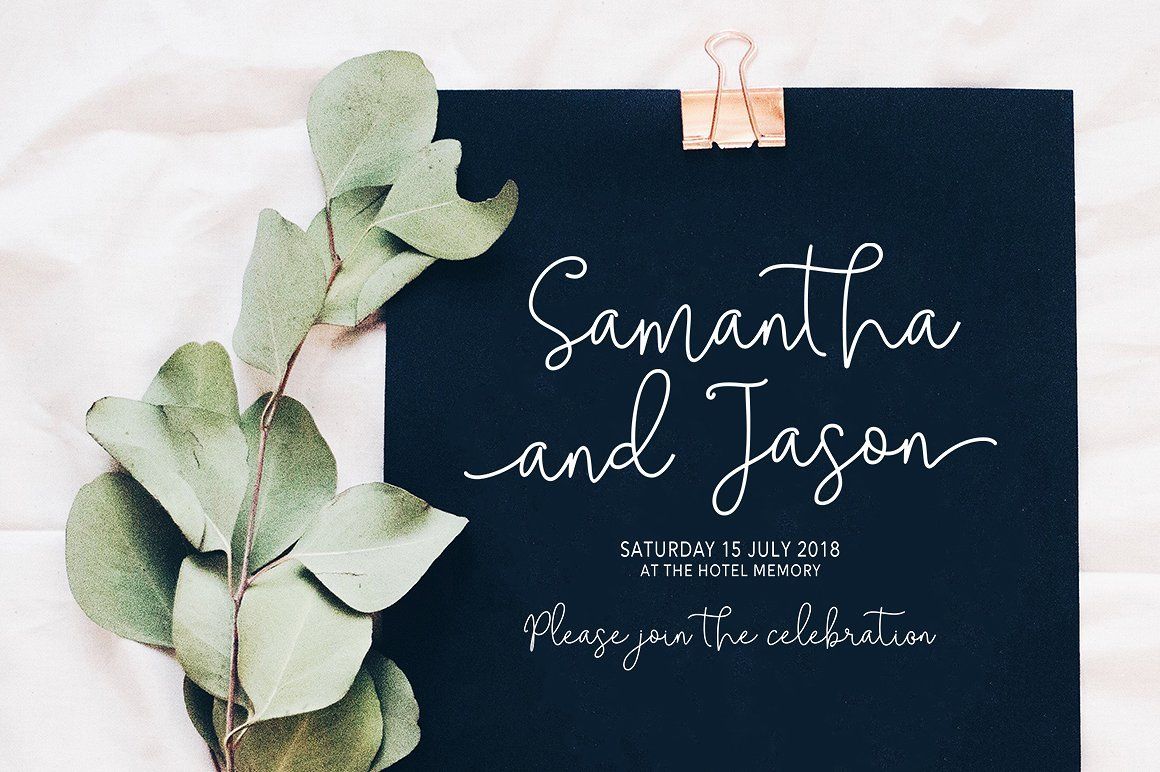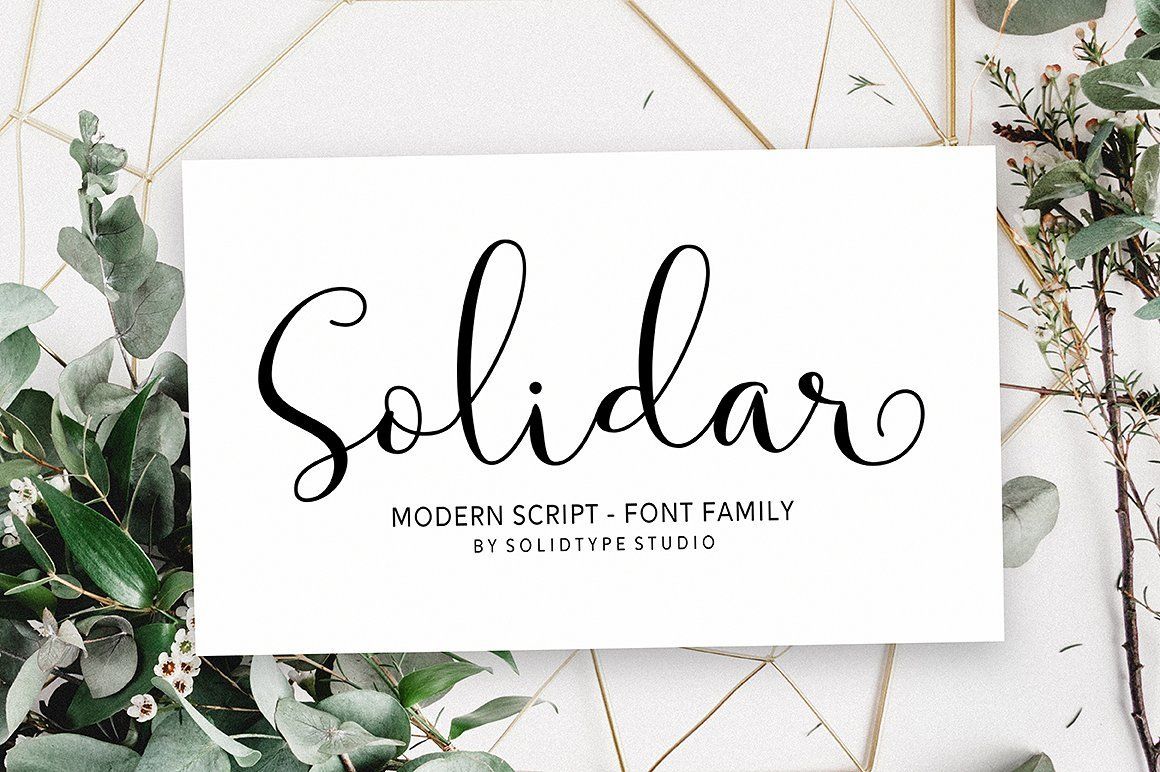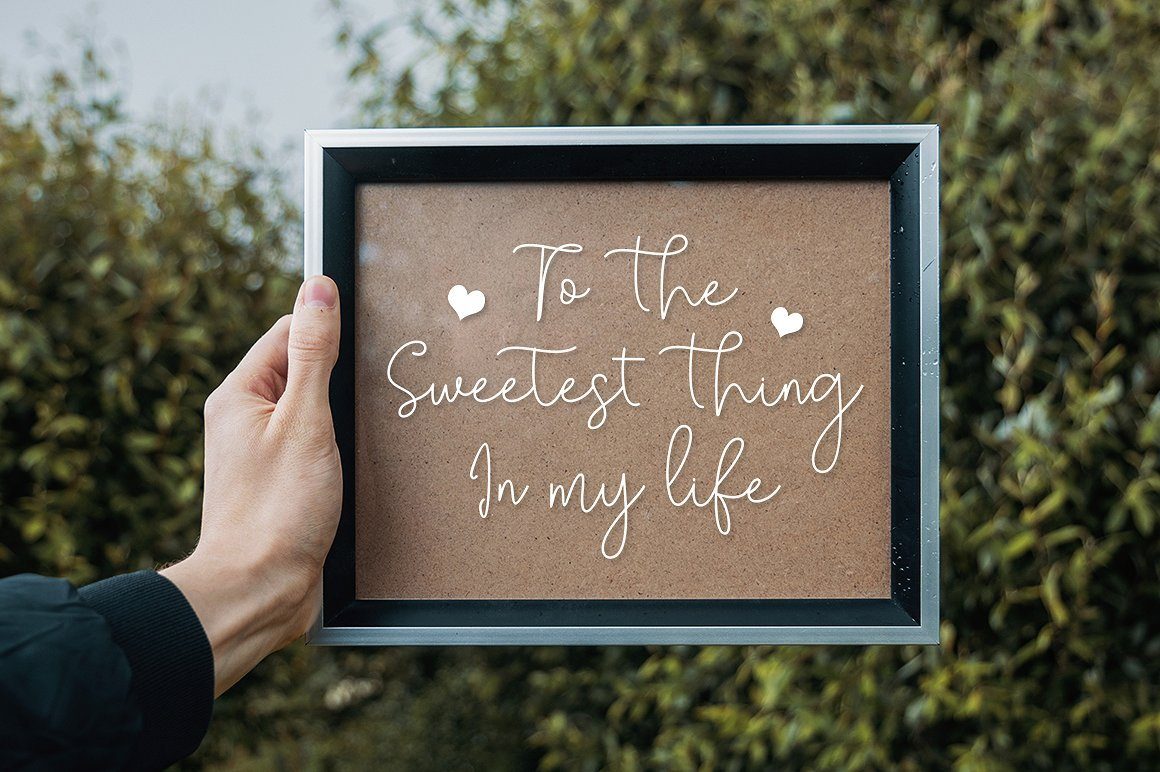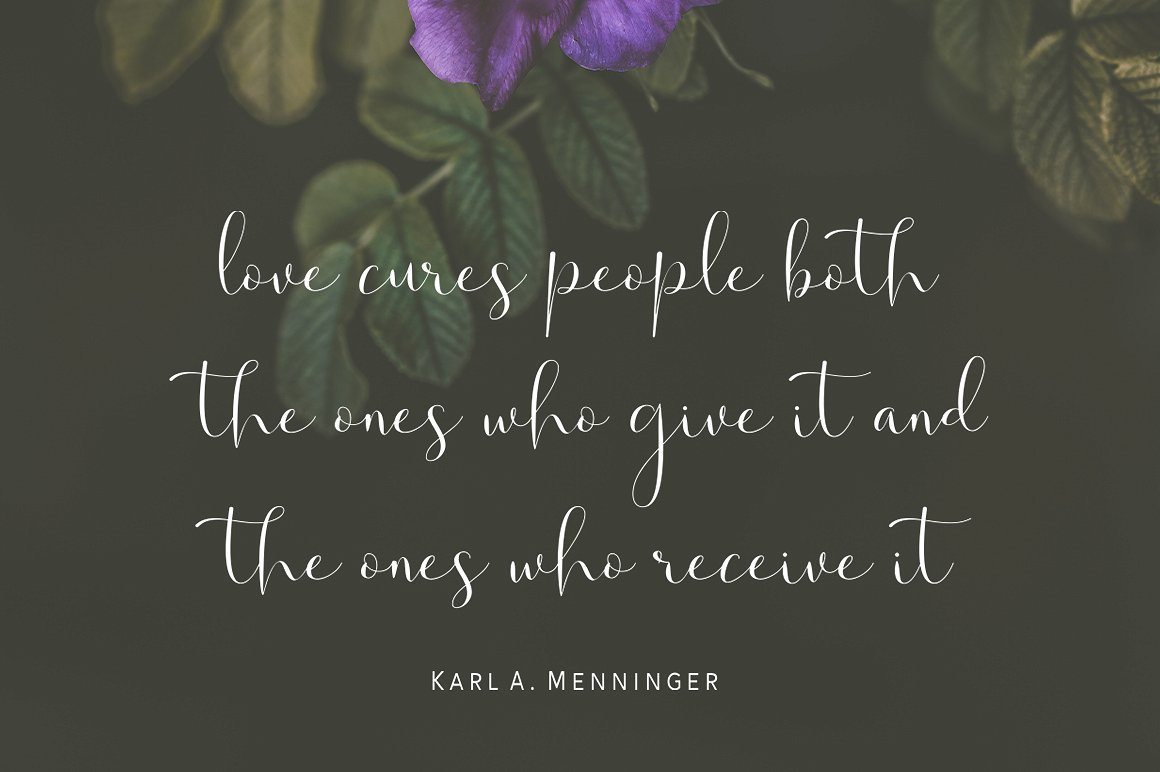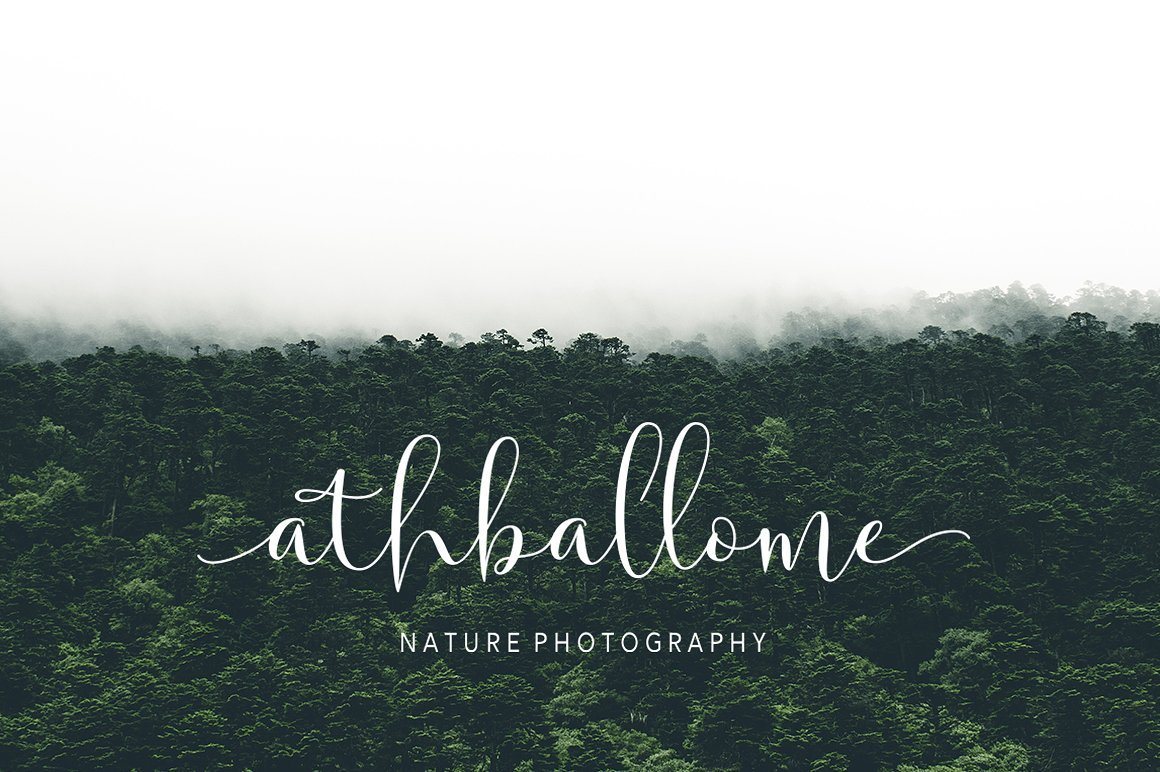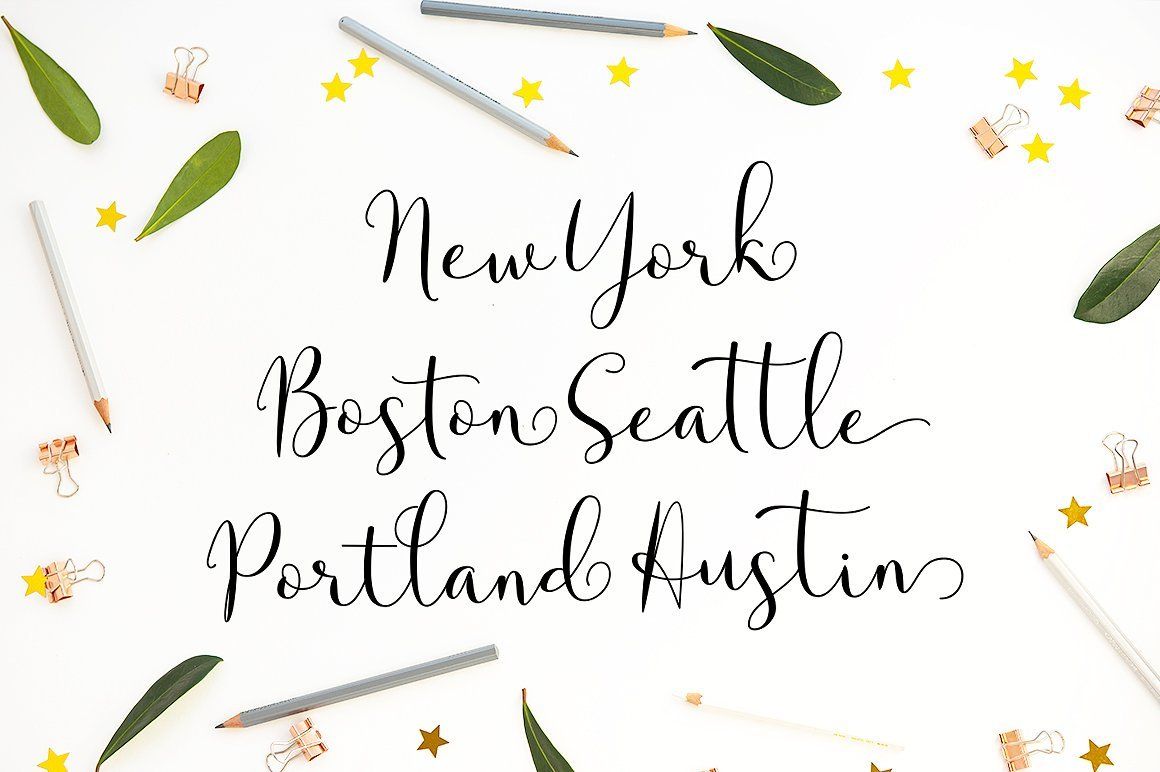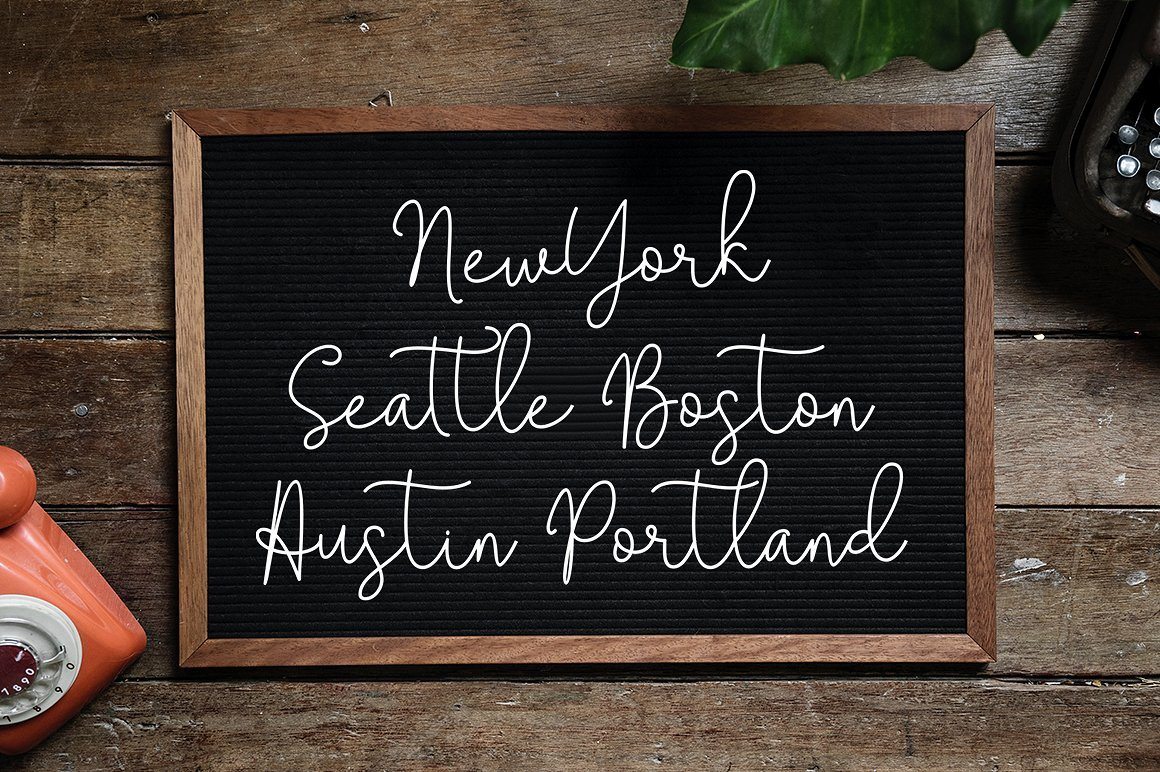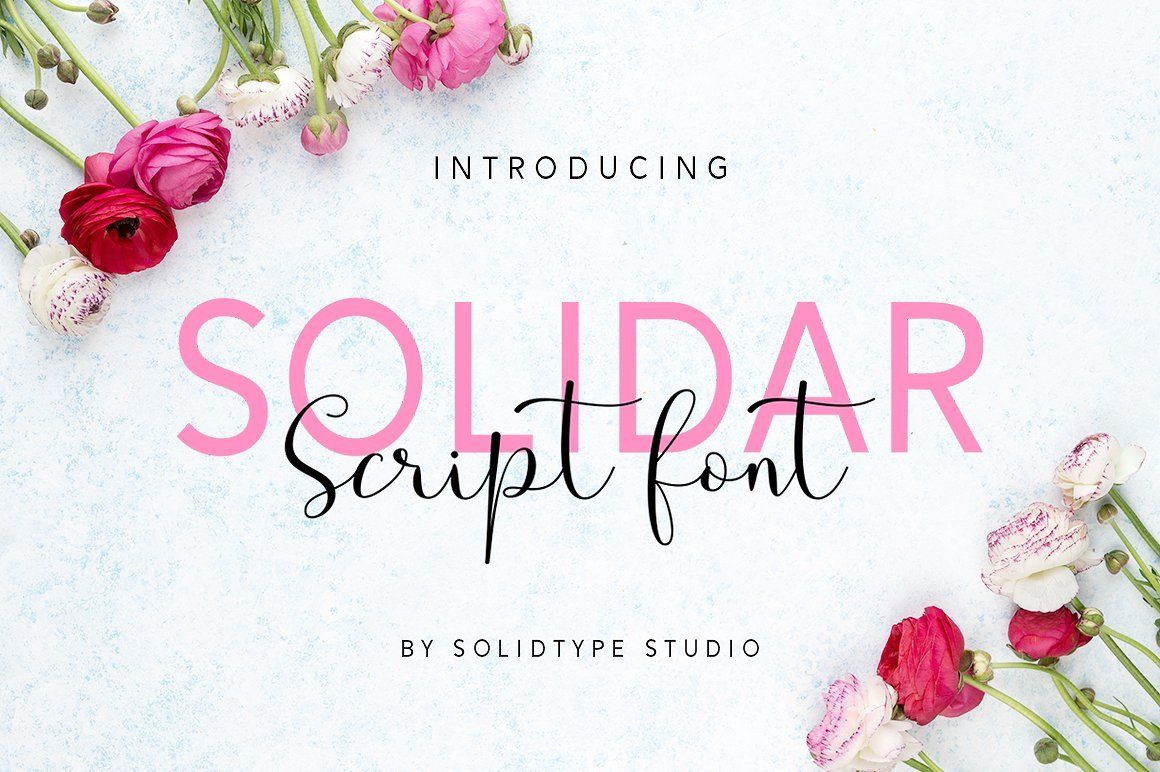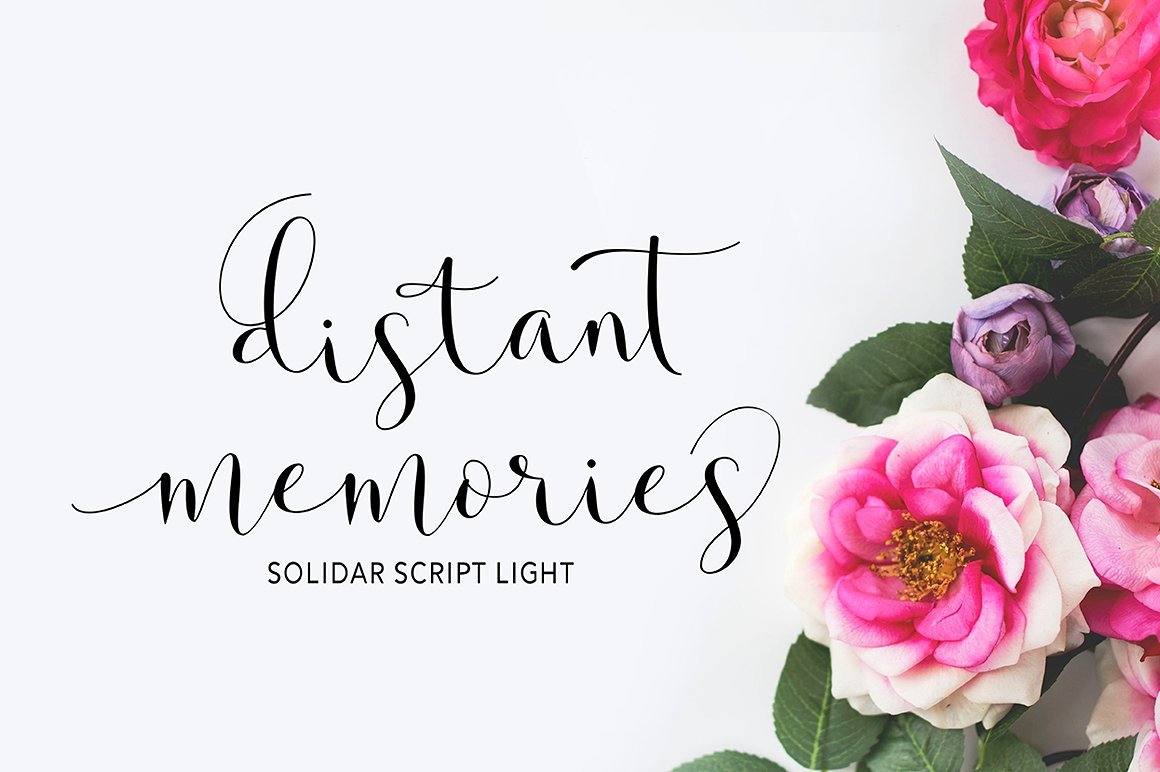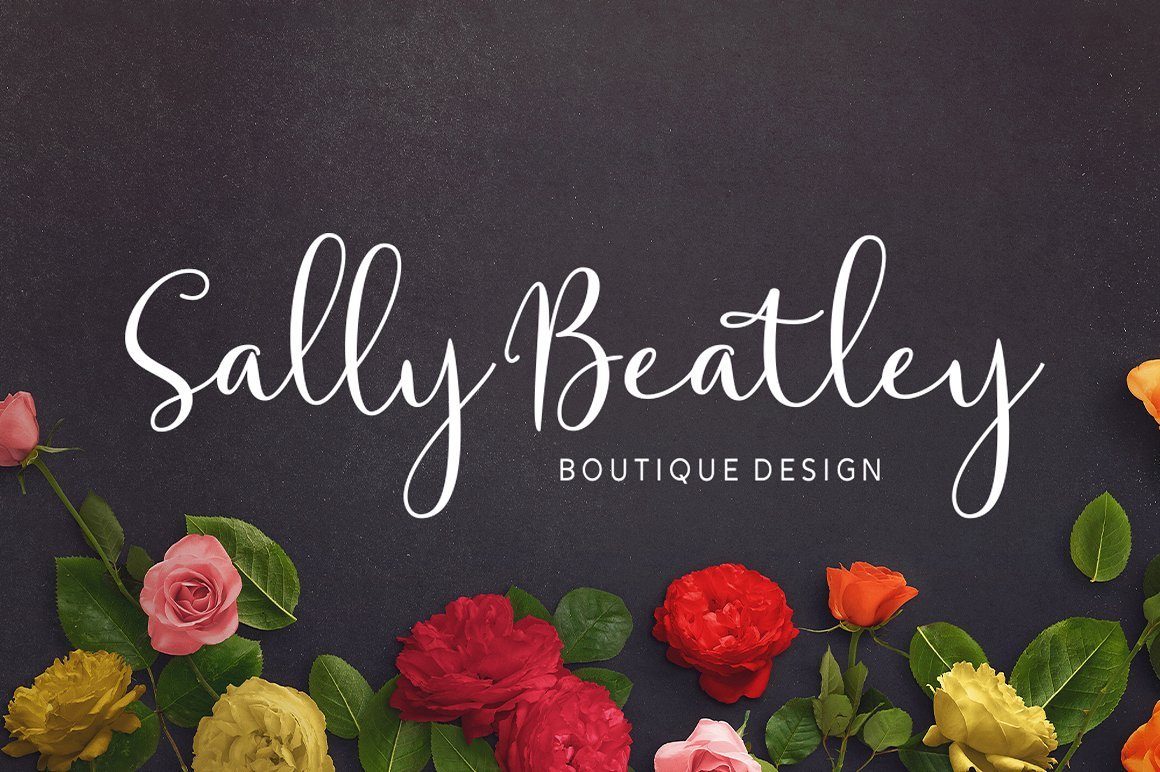
Solidar – Script Font Family
About Solidar – Script Font Family
Solidar – Script Font Family A new modern script font family, with elegant touch, casual and lovely. It comes with a handy set of opentype stylistic, use the beautiful ligatures, alternates and swashes. You need a program that supports OpenType features such as Adobe Illustrator CS, Adobe Photoshop CC, Adobe Indesign, Microsoft Word 2010. It is perfect for logo, greetings, branding, quotes, prints, invitations and crafting. All lowercase letters include alternates, beginning & end swashes, that makes the font look fabulous! Included in the pack: Solidar Script (Light, Regular, Bold) OTF/ TTF Solidar Sans (Regular, Bold) OTF/ TTF These are all coded with PUA Unicode. Mac users can use Font Book and Windows users can use Character Map to view and copy any of the extra characters to paste into your favourite text editor/app. For sans serif only available for uppercase letters, numbers, punctuation and all fonts are available in multilingual support. If you have any questions or problems, please don’t hesitate to message me.